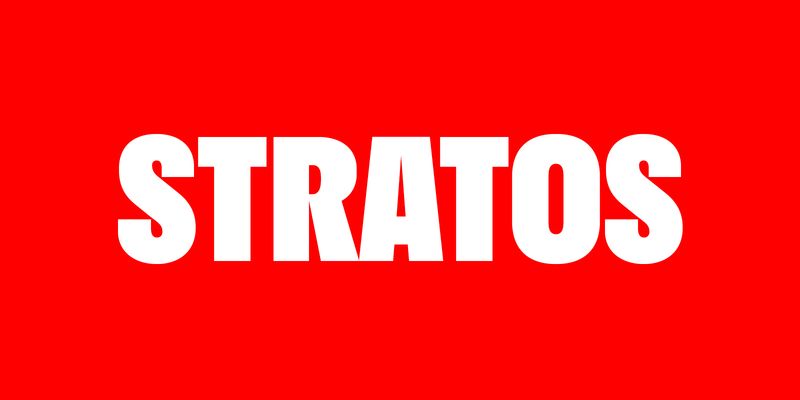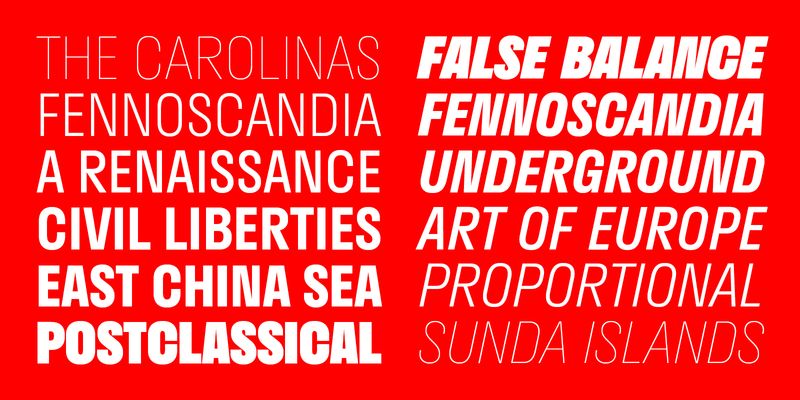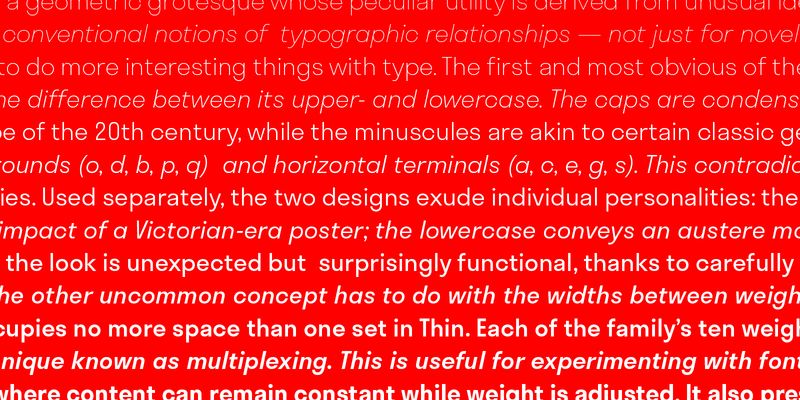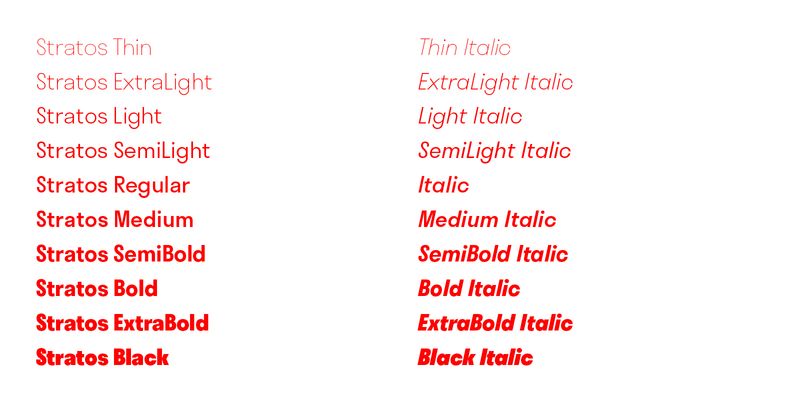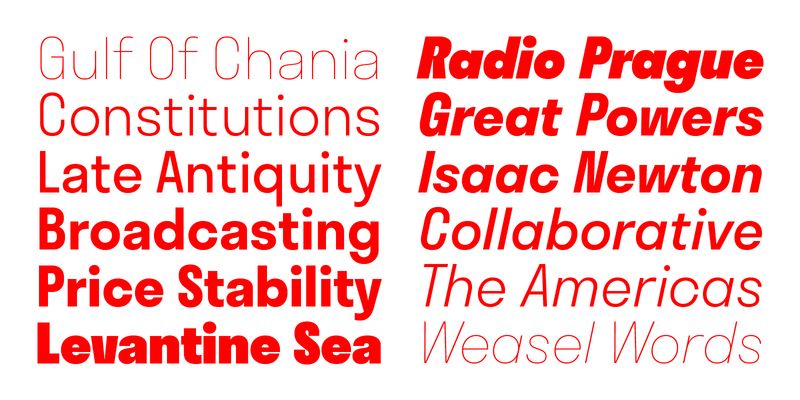
Stratos is a geometric grotesque whose peculiar utility is derived from unusual ideas about proportion. It eschews conventional notions of typographic relationships — not just for novel effect, but to empower the user to do more interesting things with type.